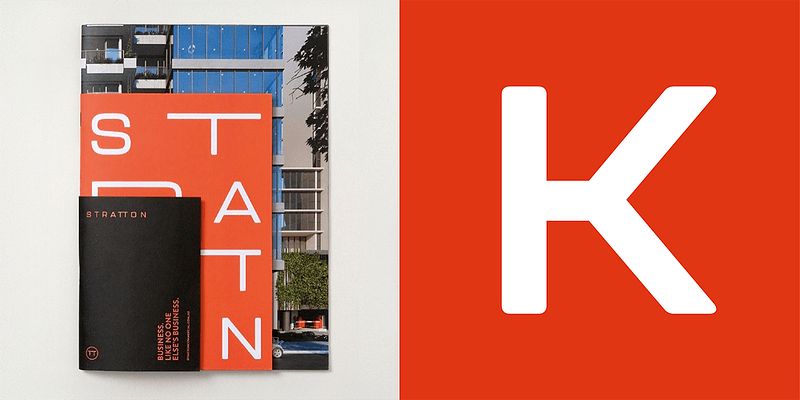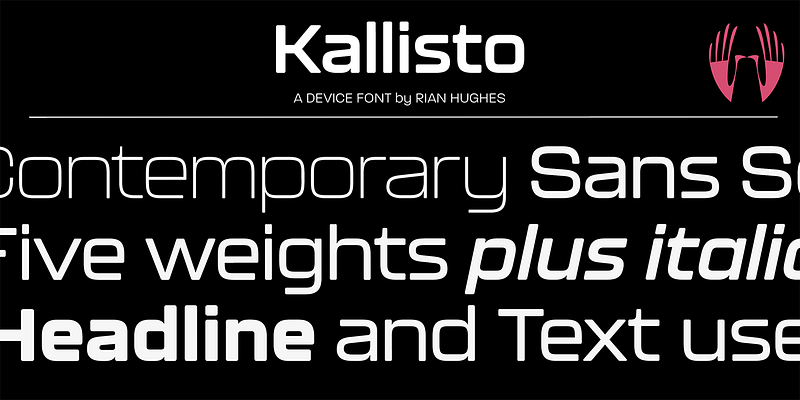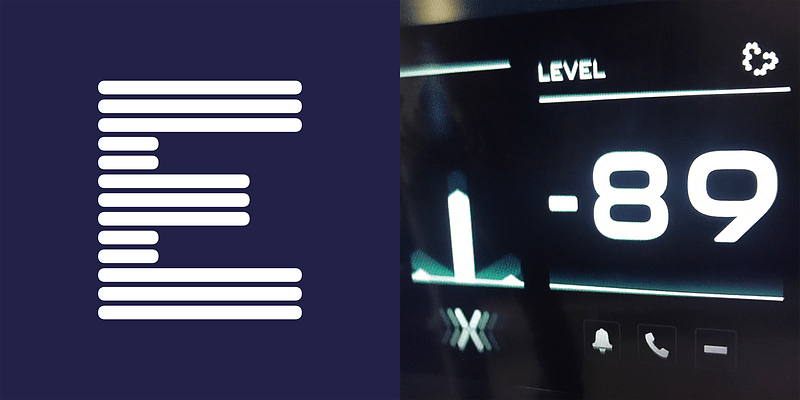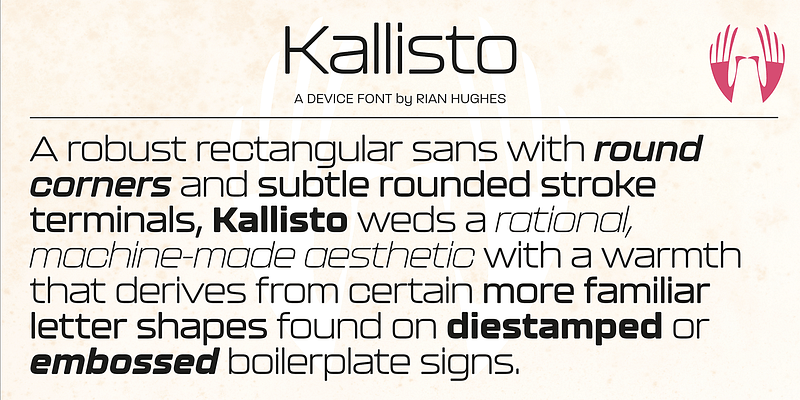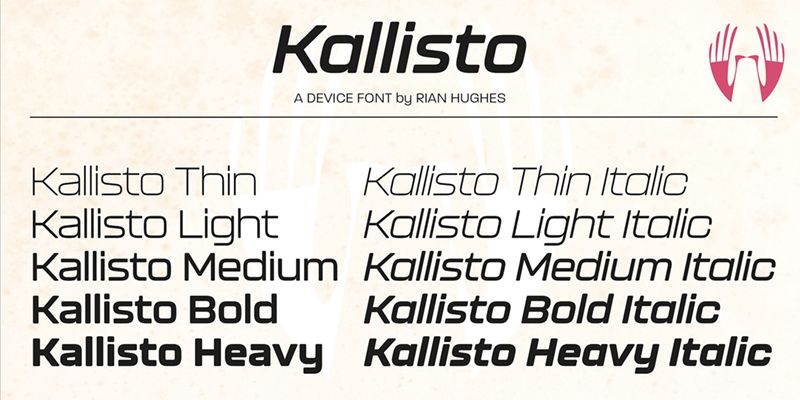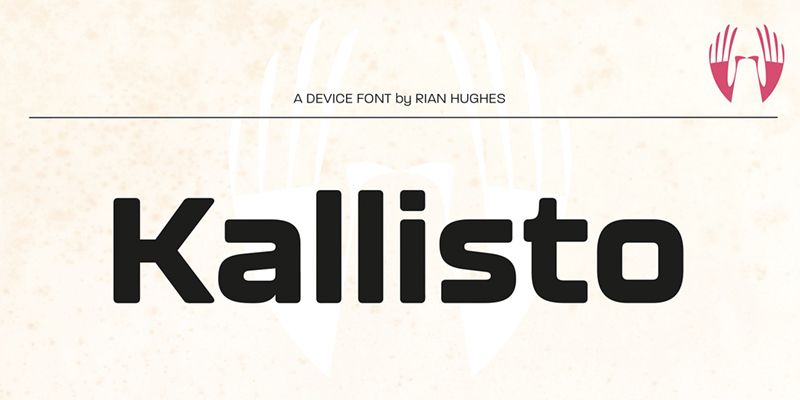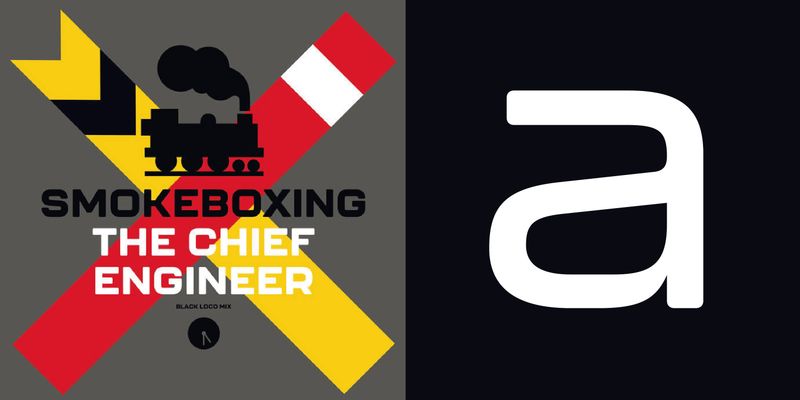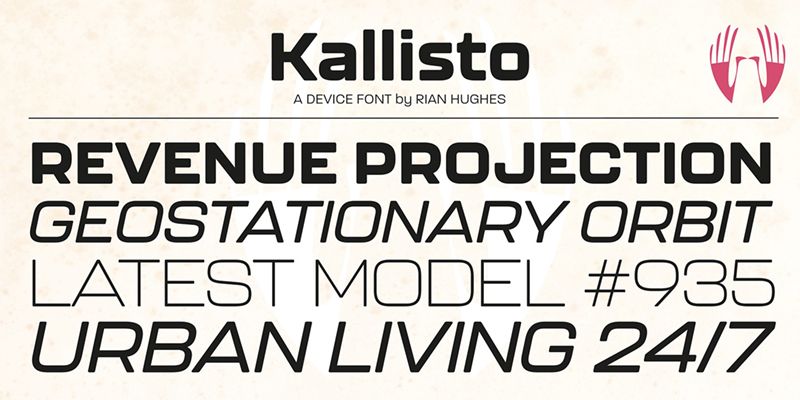
A clean, business-like squared sans that combines refinement and elegance. Sharp, sleek, machine-age.
Type, design and imagery by English illustrator and typographer Rian Hughes.